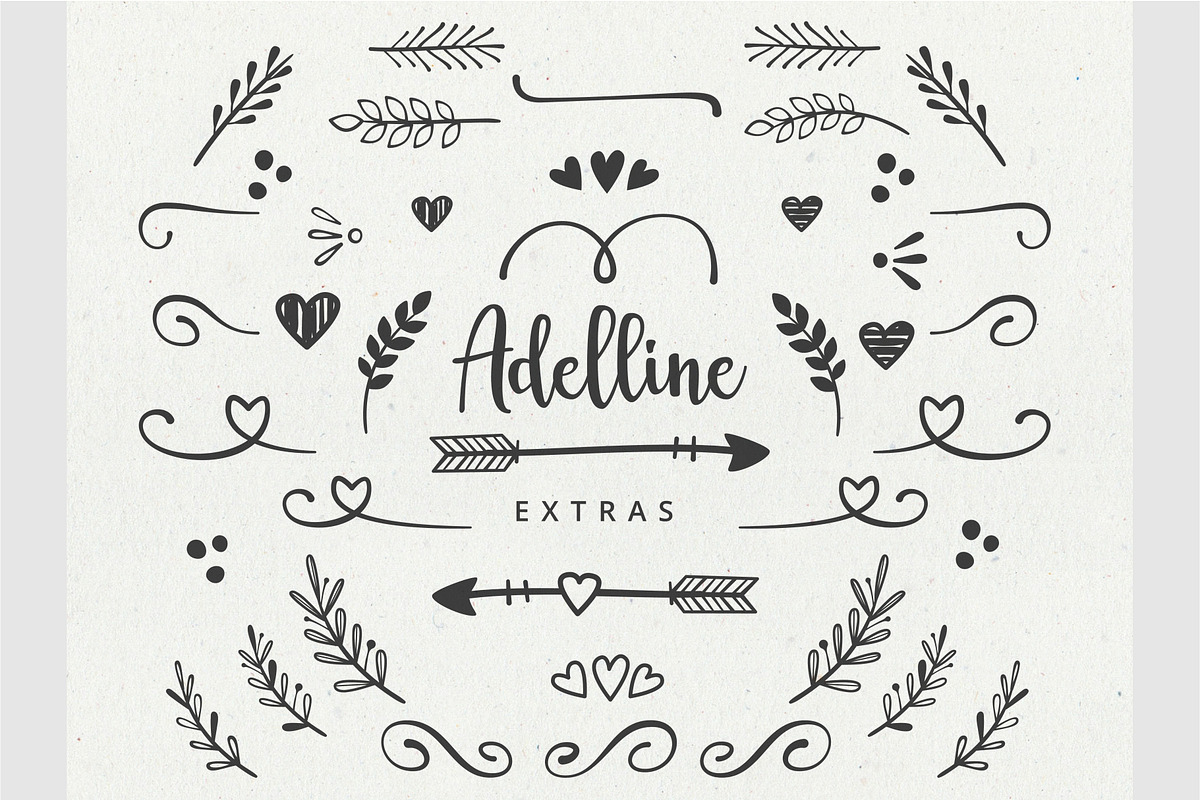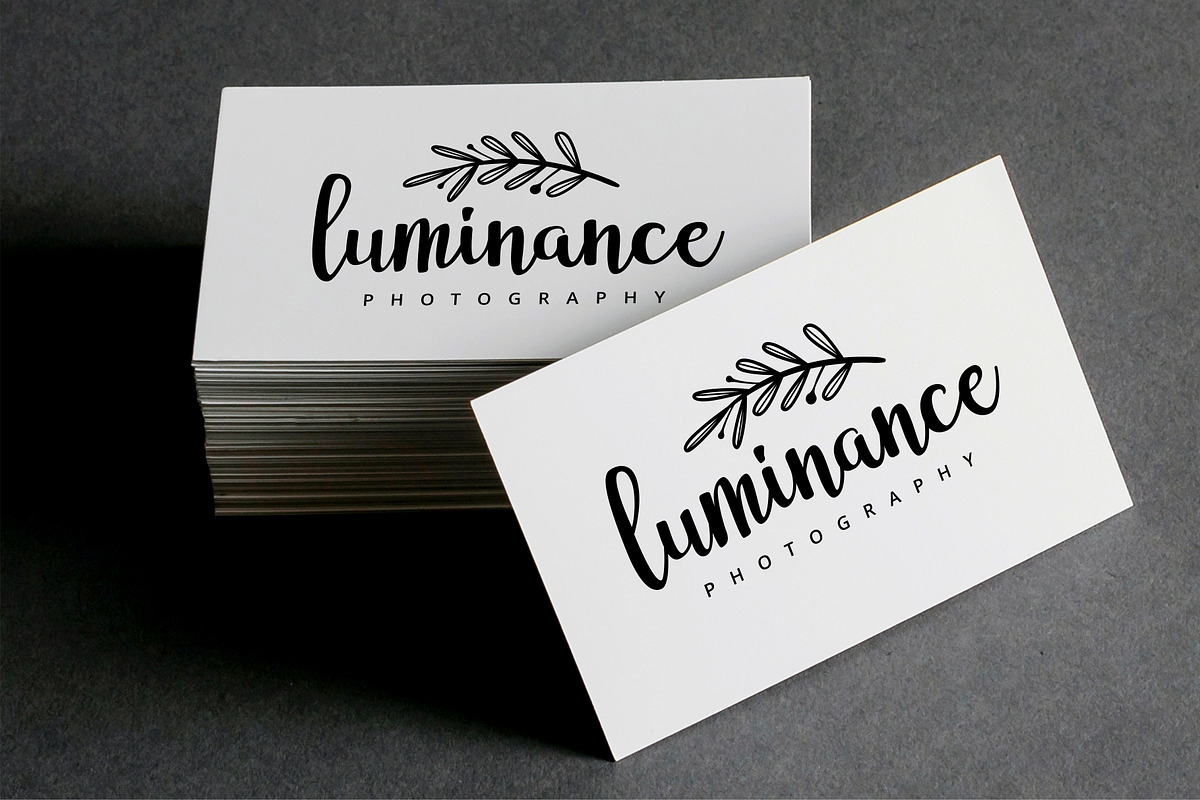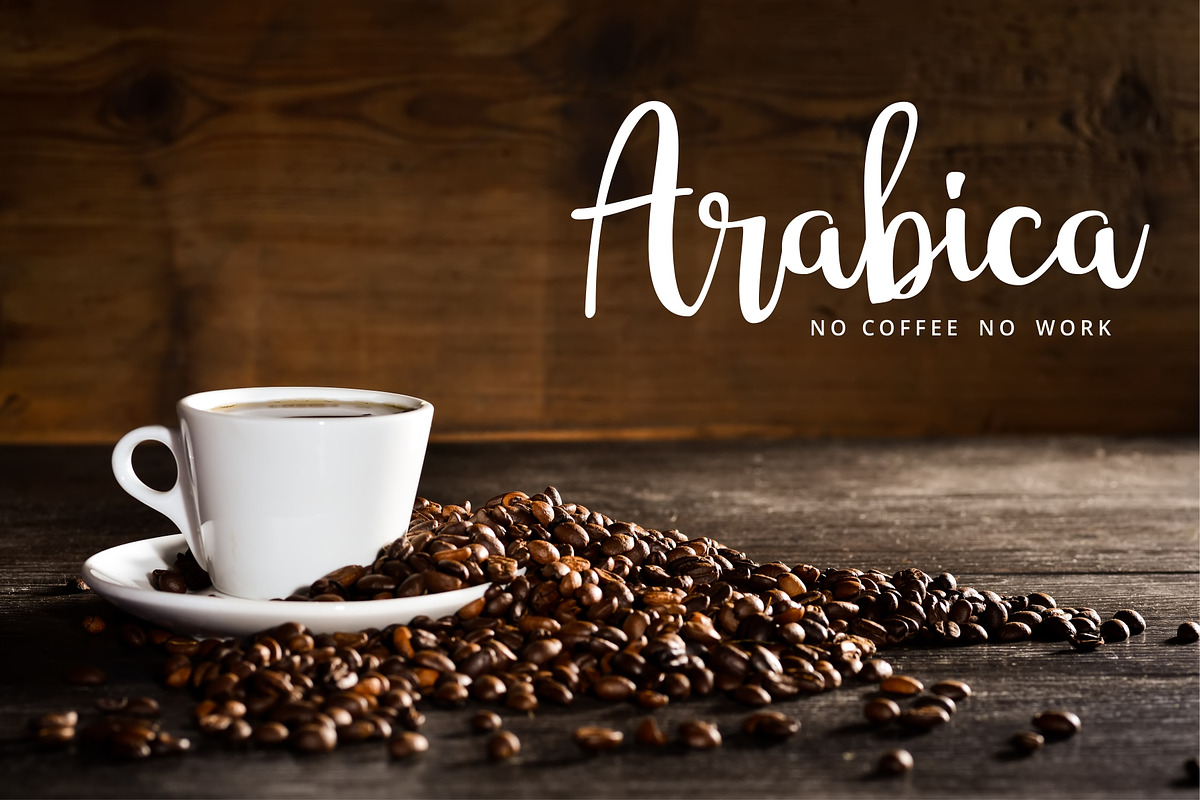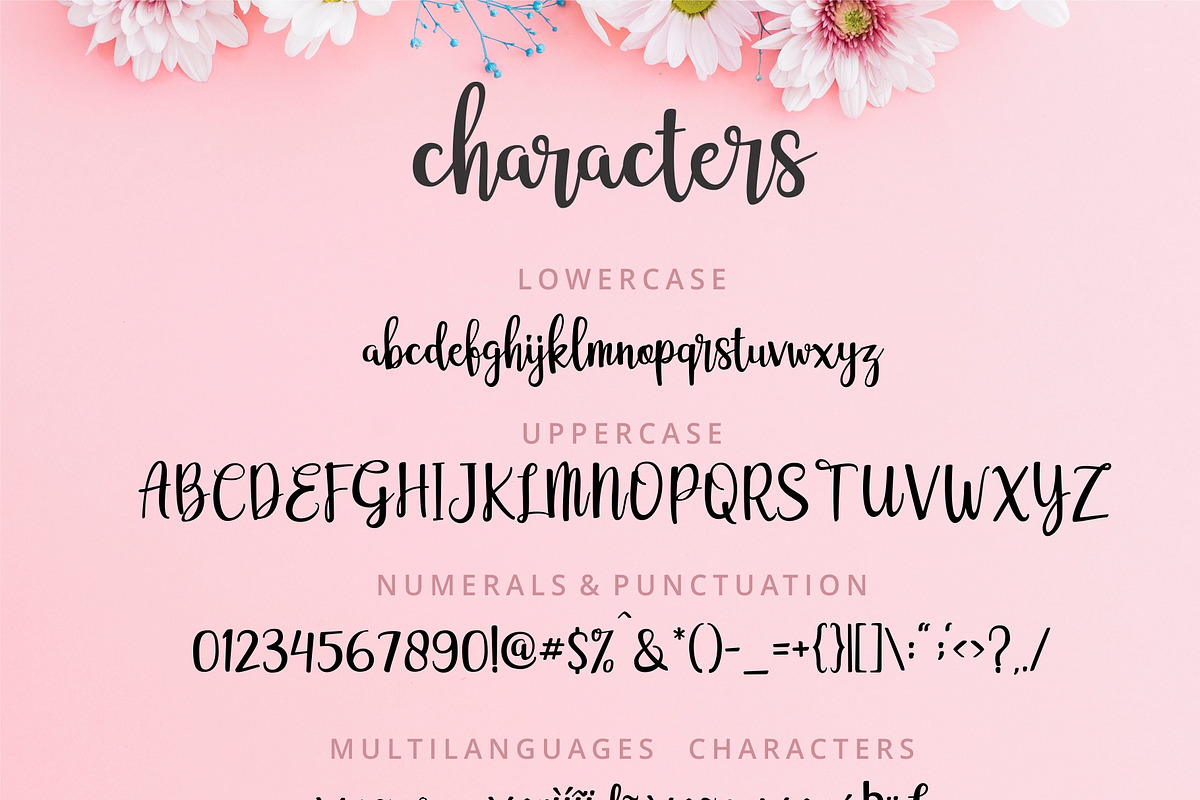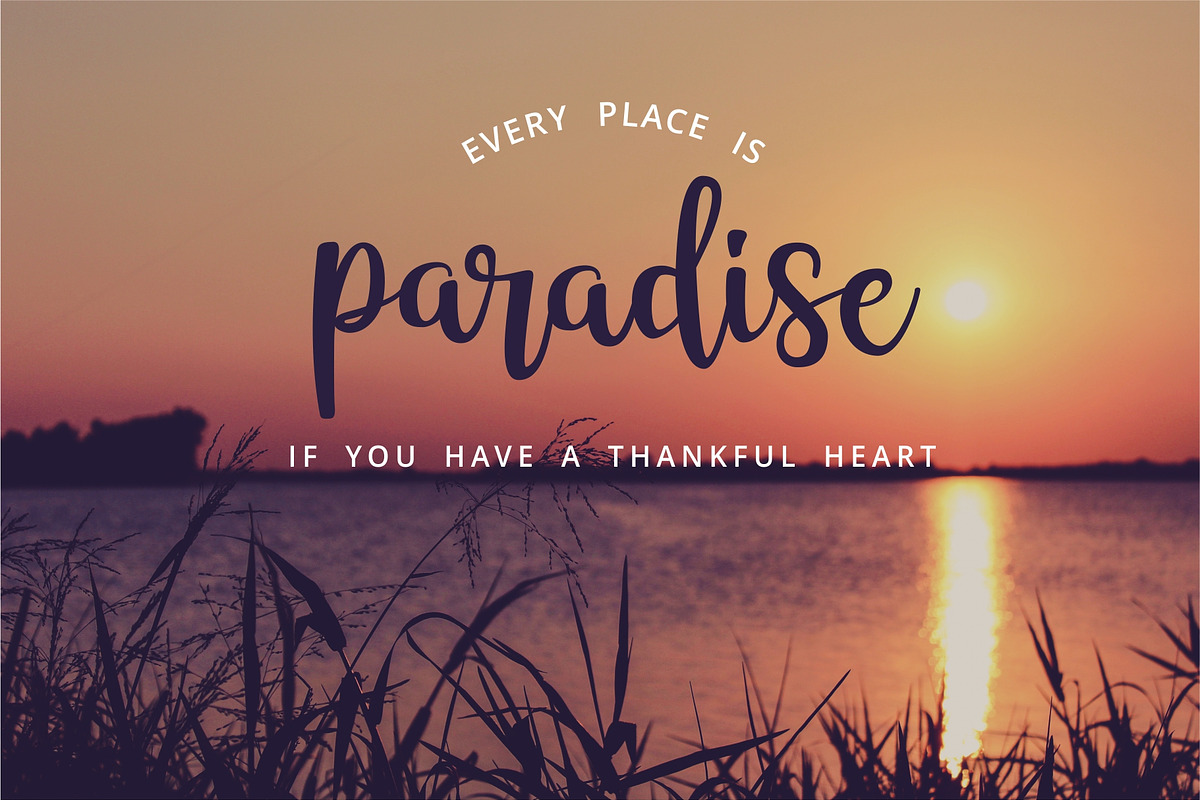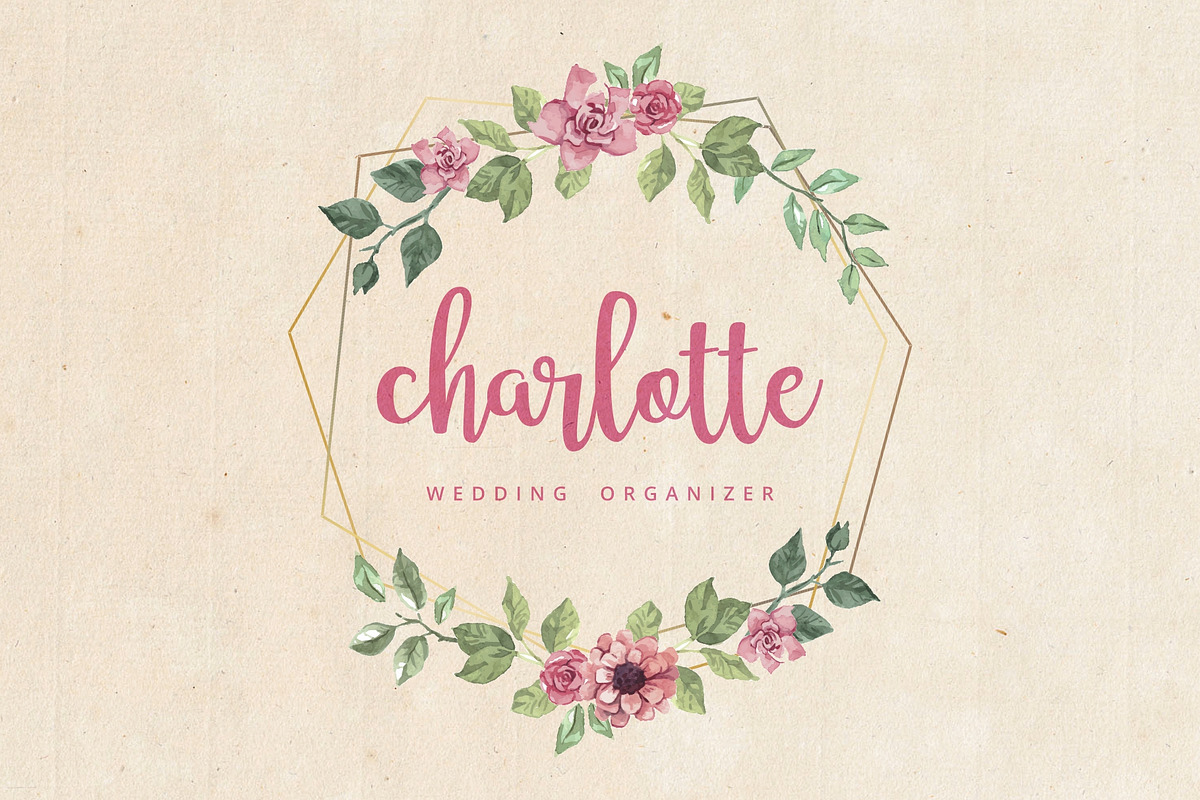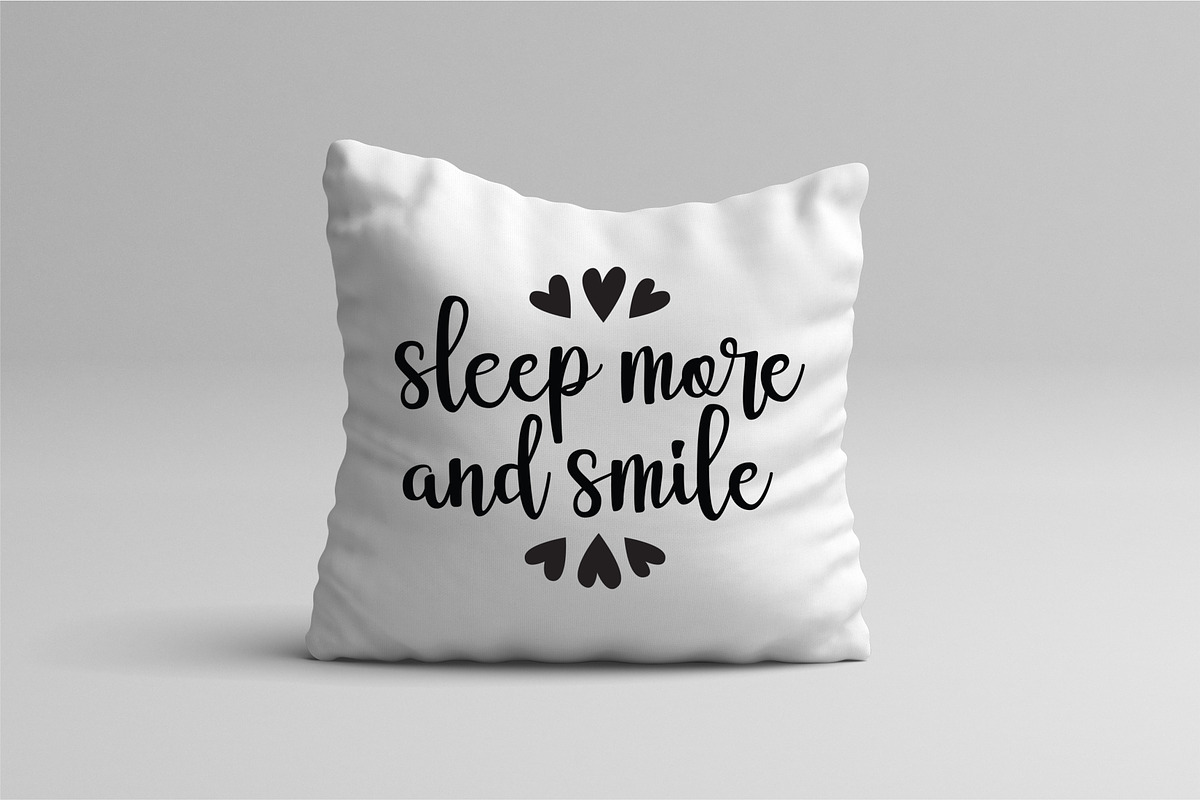
Adelline | beautiful elegant font
INTRODUCING Adelline script.
available for embedding into a pdf An elegant & beautiful script font with extras. It has smooth and natural hand lettering stroke.
Adelline would perfect for photography, tittle, heading, watermark, social media posts, advertisements, logos & branding, invitation, product designs, label, stationery, wedding designs, product packaging, graphic design that need handwriting taste.
multilingual support characters ÀÁÂÃÄÅÆÇÈÉÊËÌÍÎÏÐÑÒÓÔÕÖØÙÚÛÜÝÞß àáâãäåæçèéêëìíîïðñòóôõöøùúûüýþÿlœž
with this creative elements, you can create your own design with ease. but also you can combine the Adelline extra with your own font. adelline extra provided in vector format for adobe illustrator. See the previews above to get some inspiration on how you can use them :)